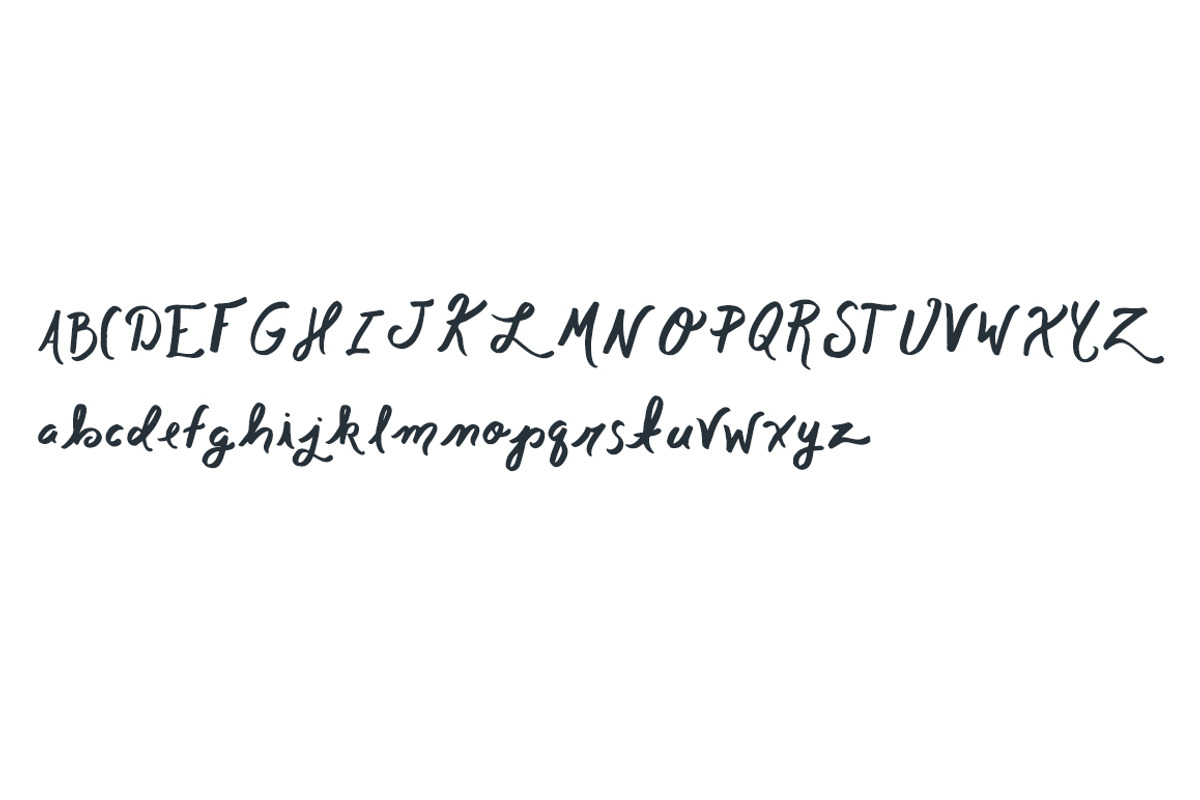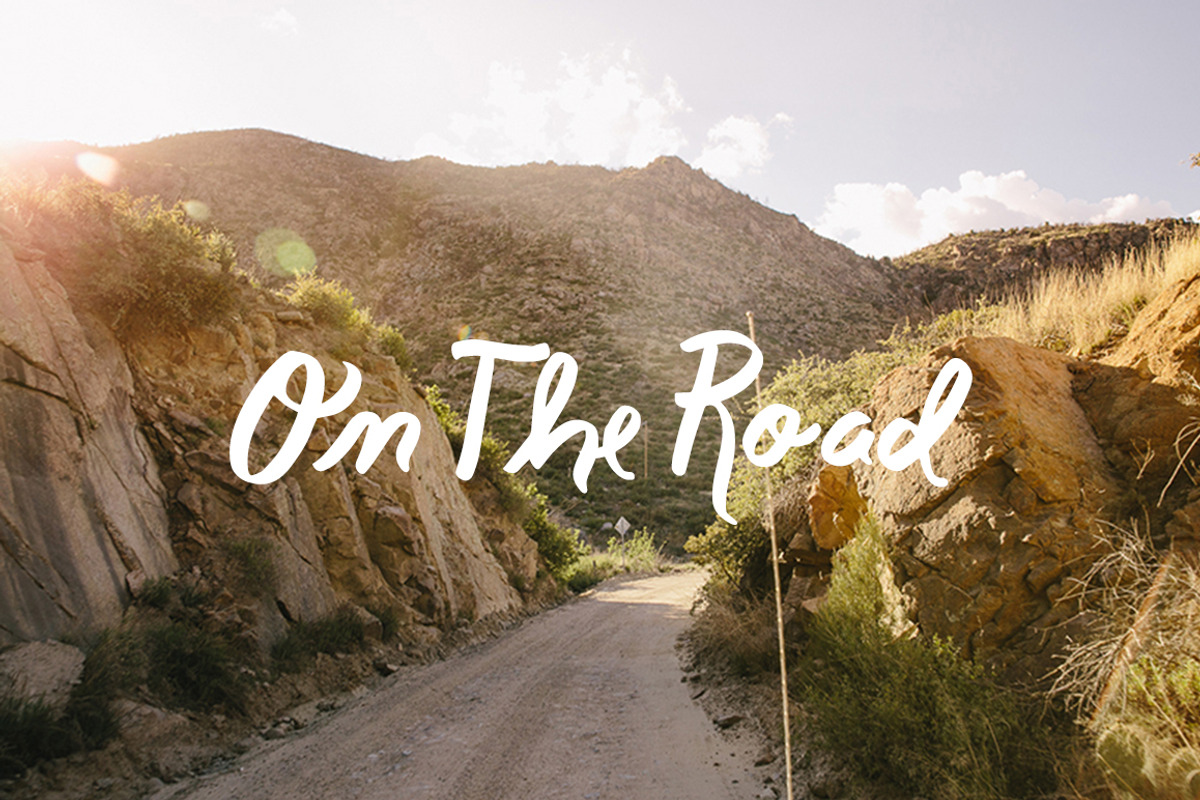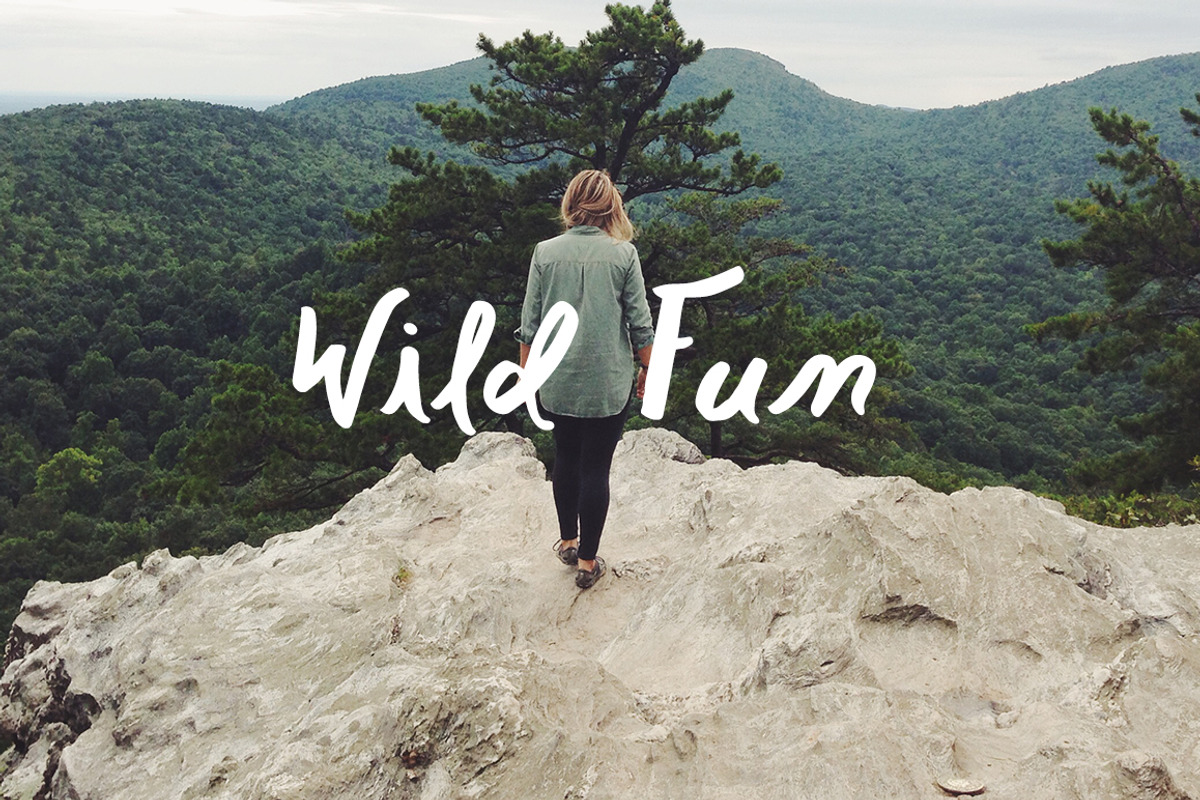
Hung Up - A Script Font
Hung Up - A Script Font by The Fresh Exchange is a font selected for branding, posters, packaging, typography.
- There is no punctuation in this font currently.
Why Hung Up - A Script Font is worth a look
Hung Up - A Script Font by The Fresh Exchange fits naturally into Branding, posters, packaging, typography.